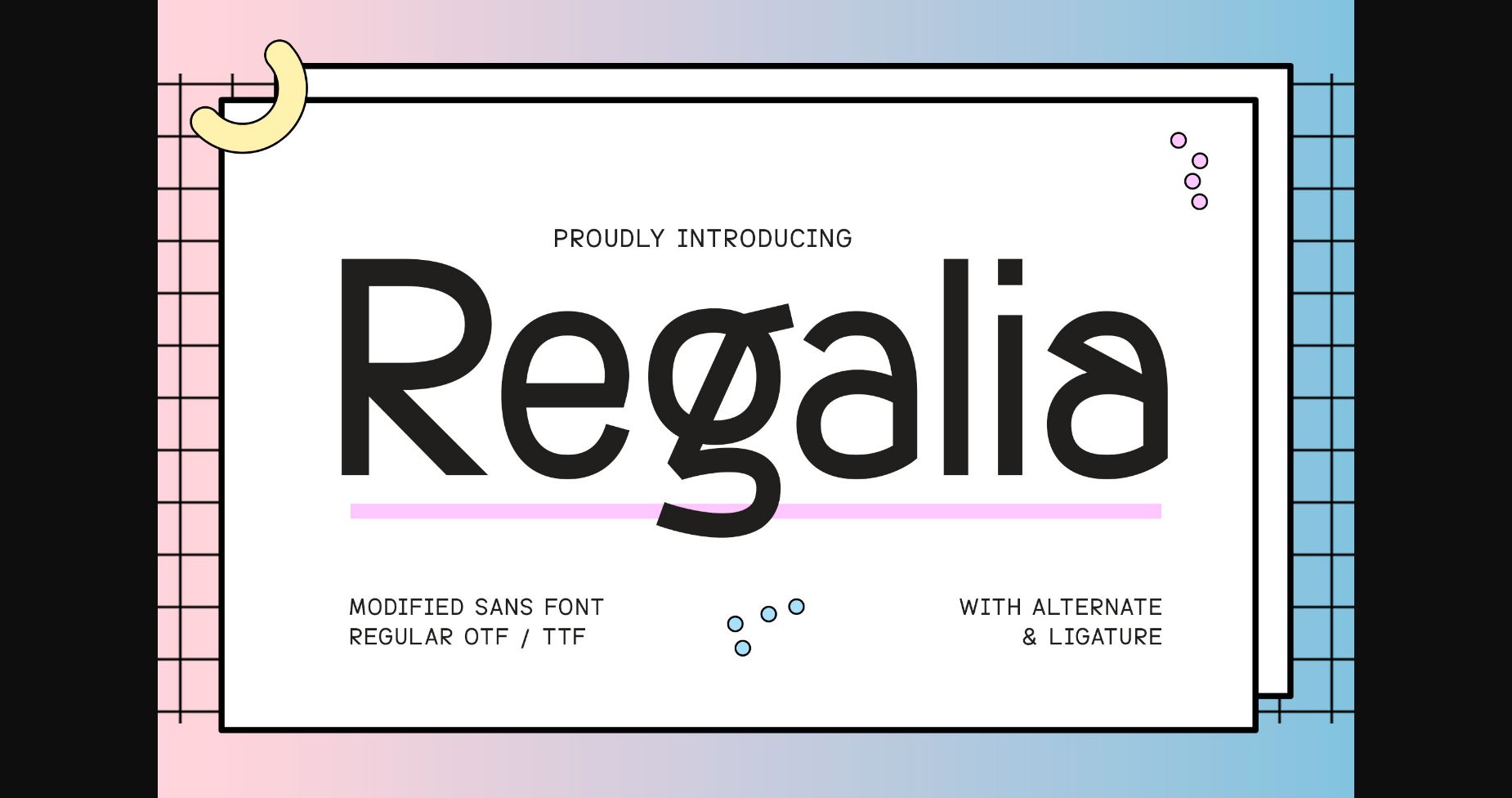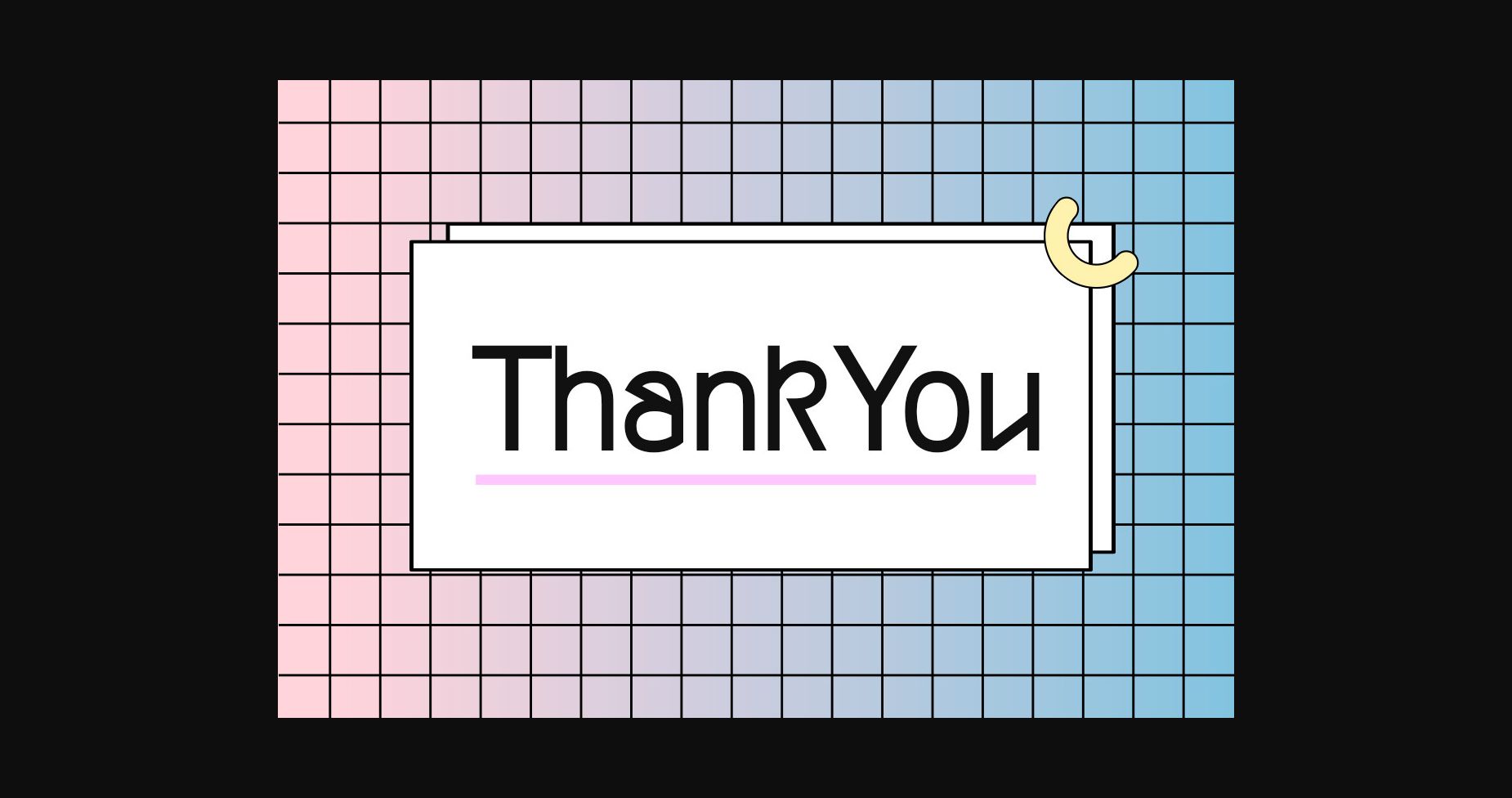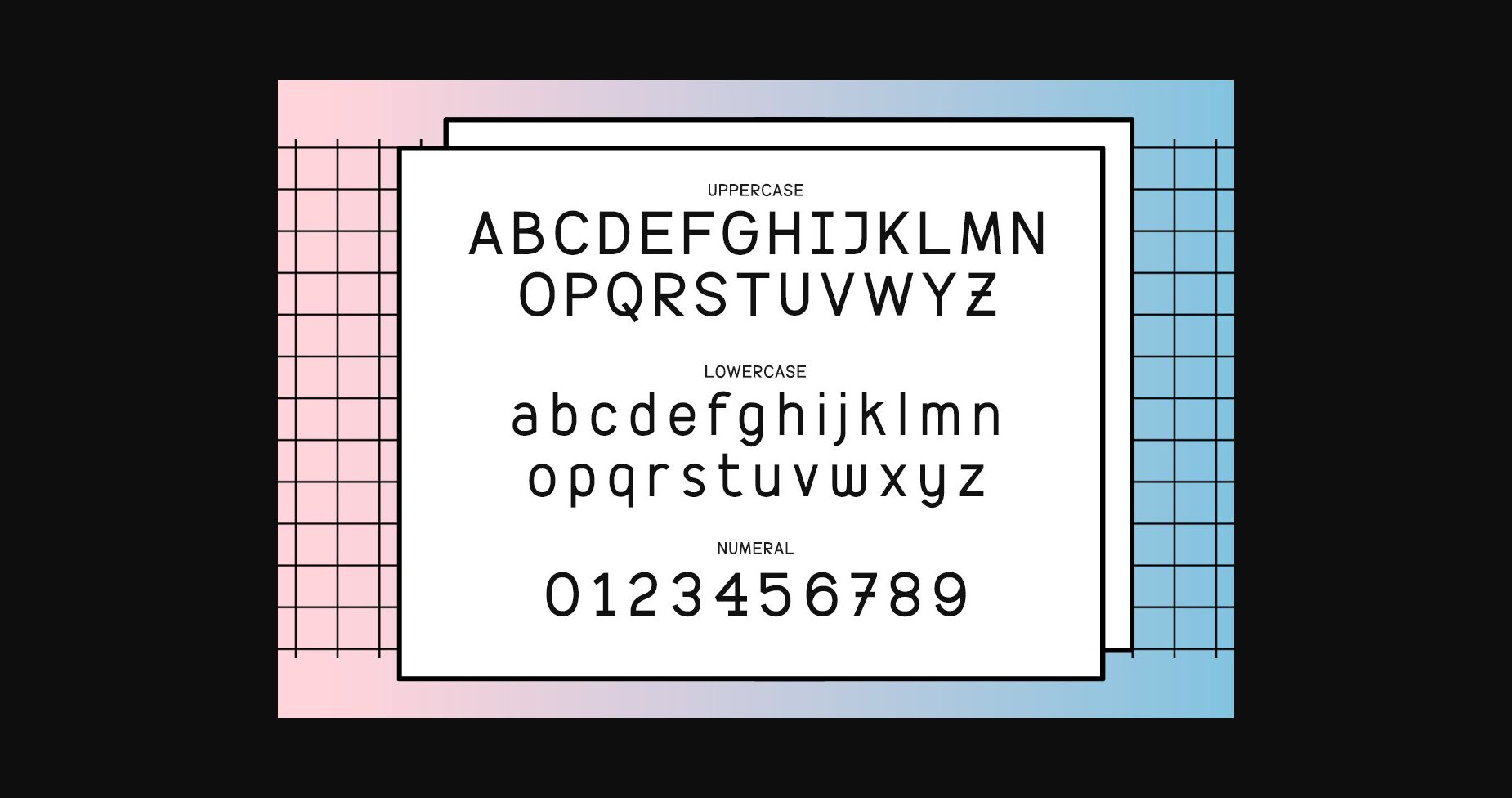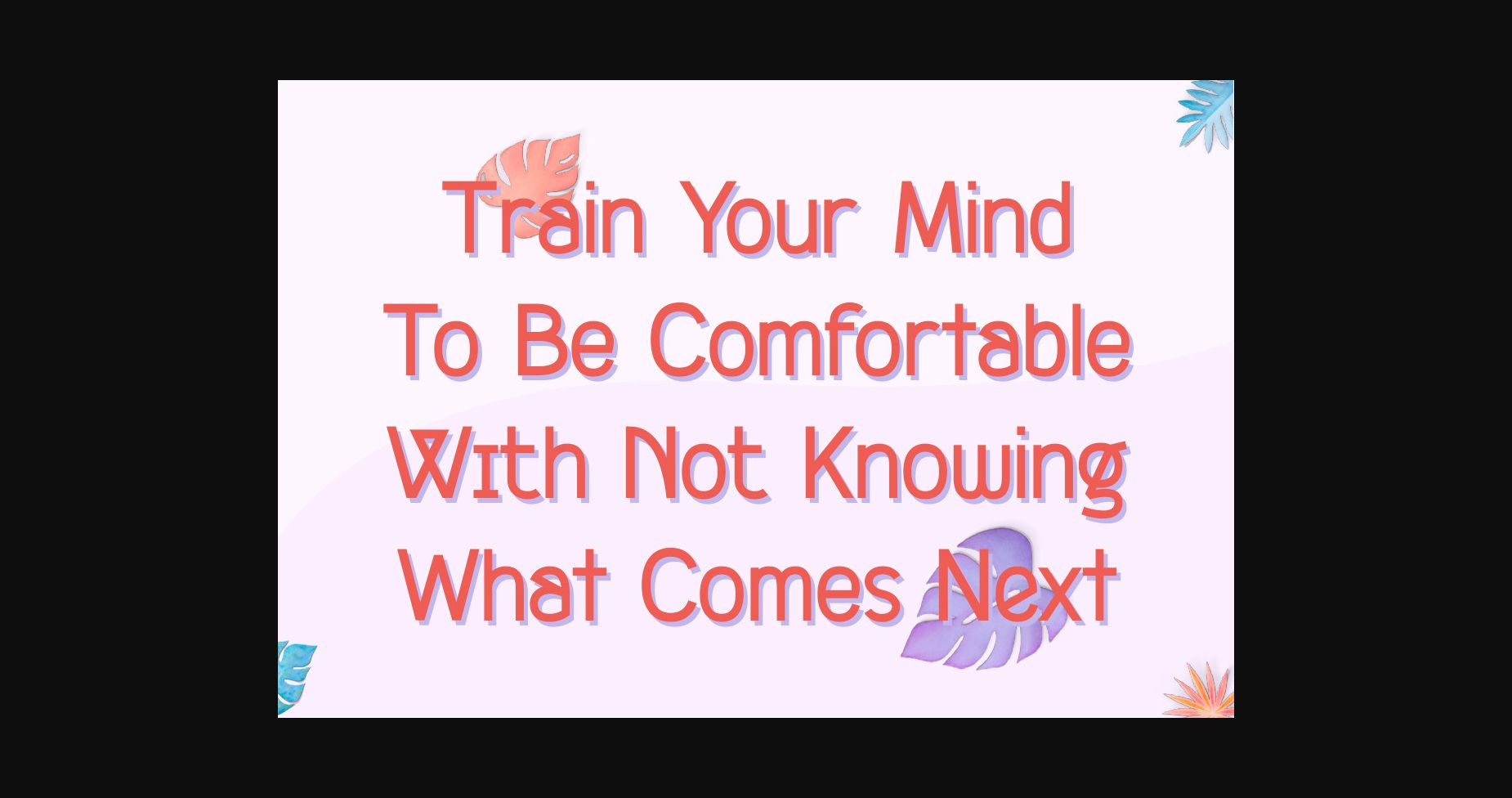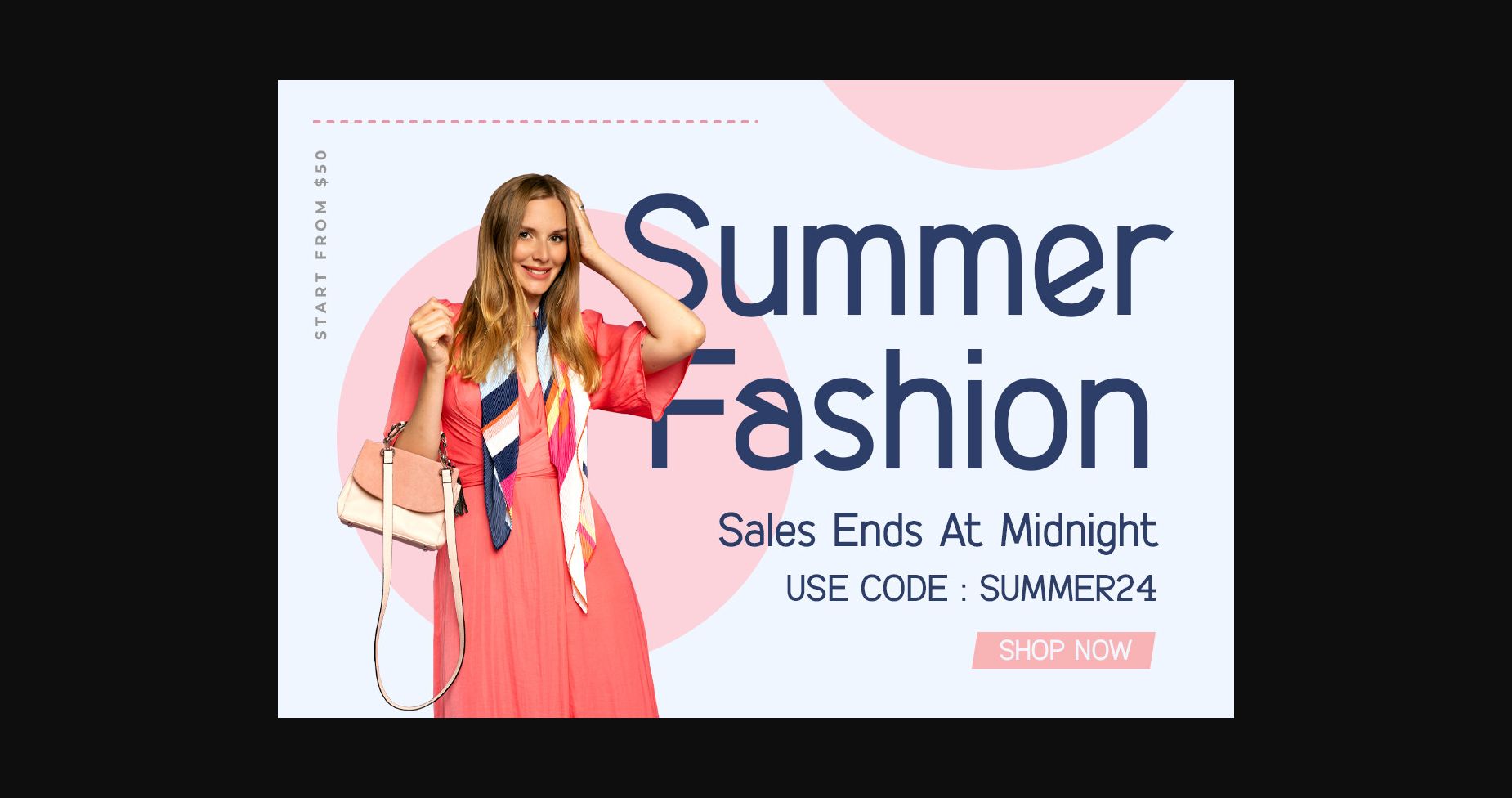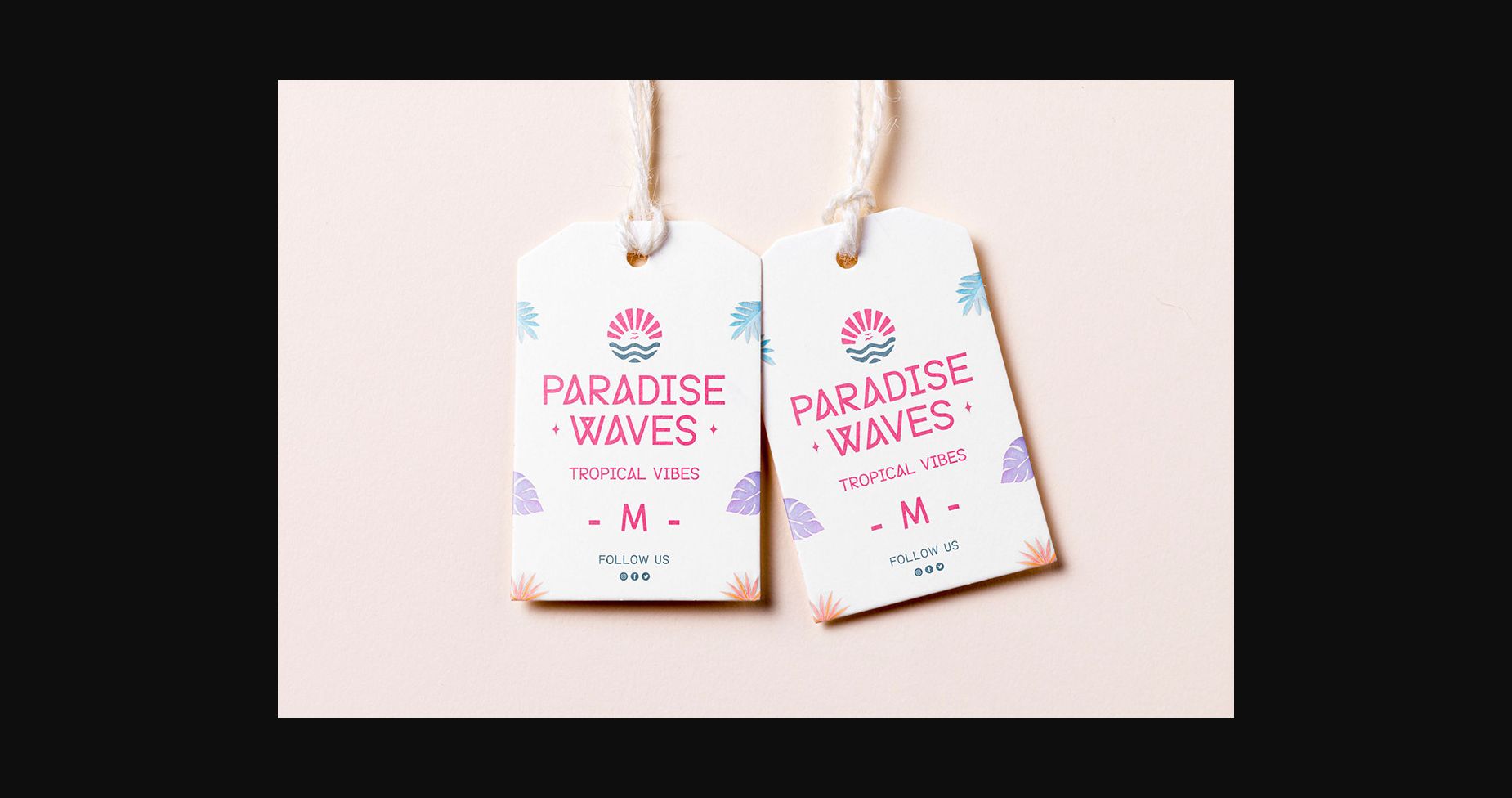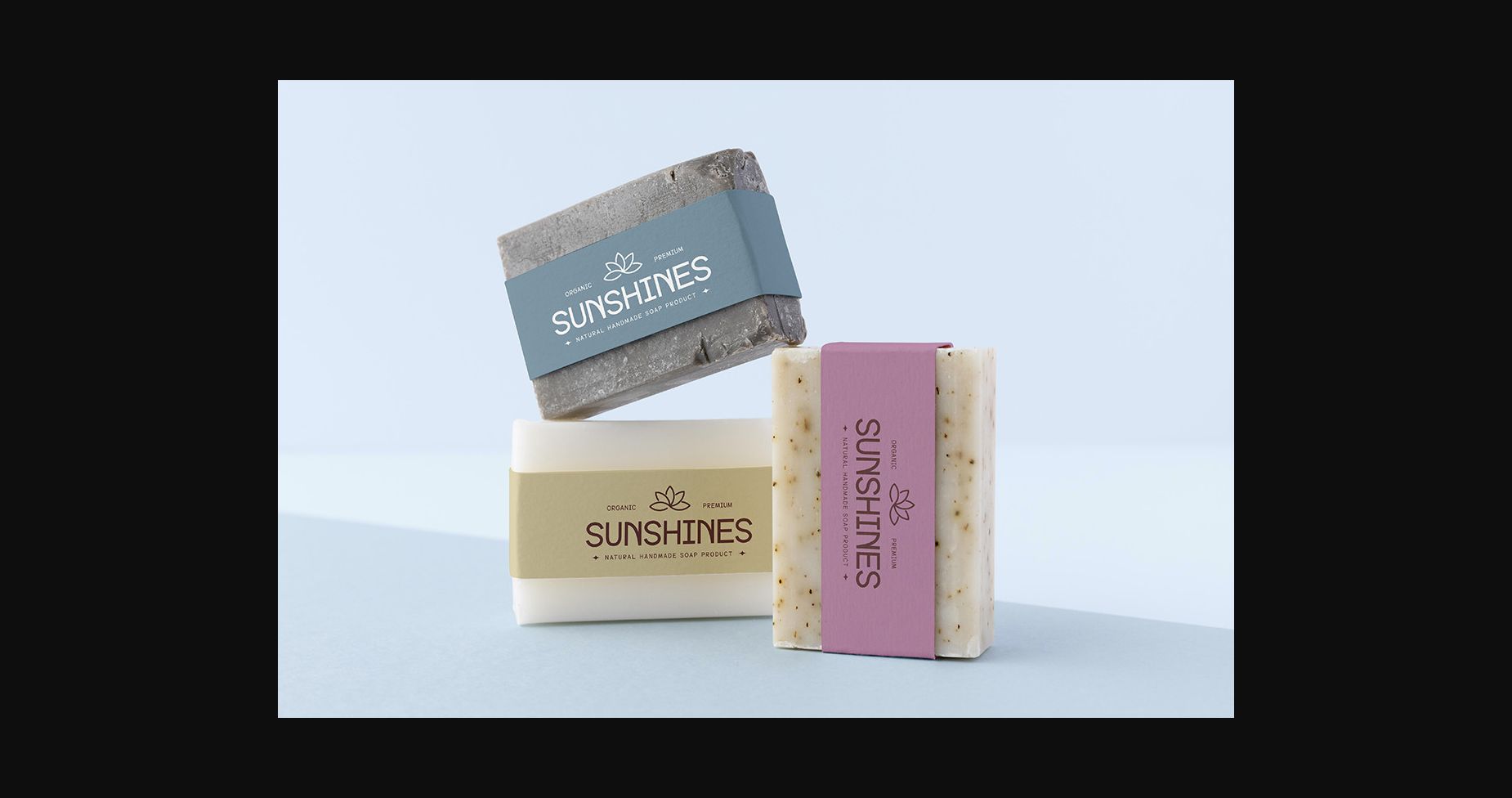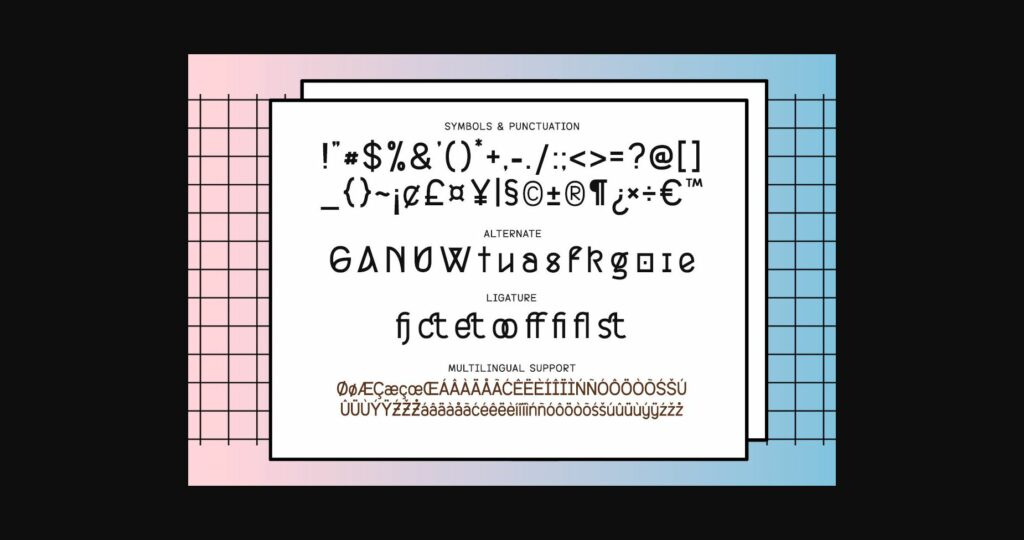
Regalia Font
About Regalia Font
Regalia is a modified sans display font.
No matter the topic, this font will be an incredible asset to your fonts’ library, as it has the potential to elevate any creation.